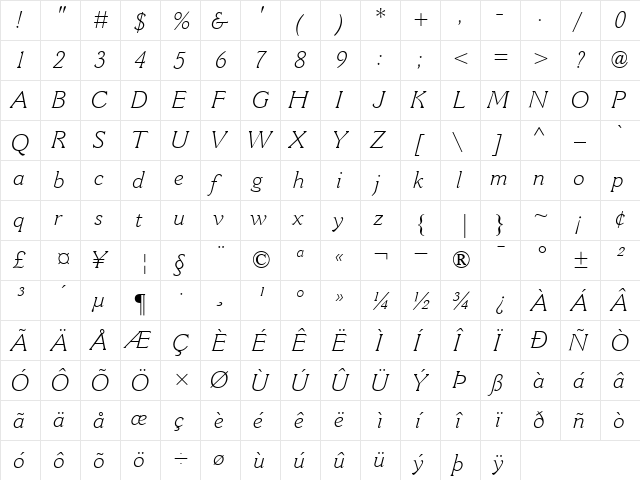
CantoriaMT-Light LightItalic
Design Context for CantoriaMT-Light Typeface
CantoriaMT-Light takes a measured approach to typography — its balanced proportions and neutral character make it a reliable workhorse for both digital and print work. The slanted form adds forward momentum and visual energy. Its slender proportions lend an understated elegance to any composition.
Pro Tip: Use CantoriaMT-Light for emphasis, pull quotes, and subheadings where its slanted energy can add rhythm to the layout.